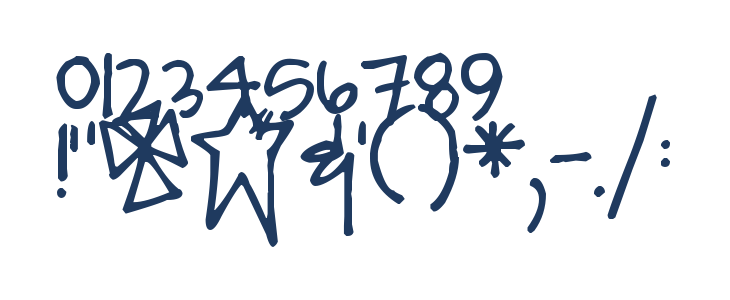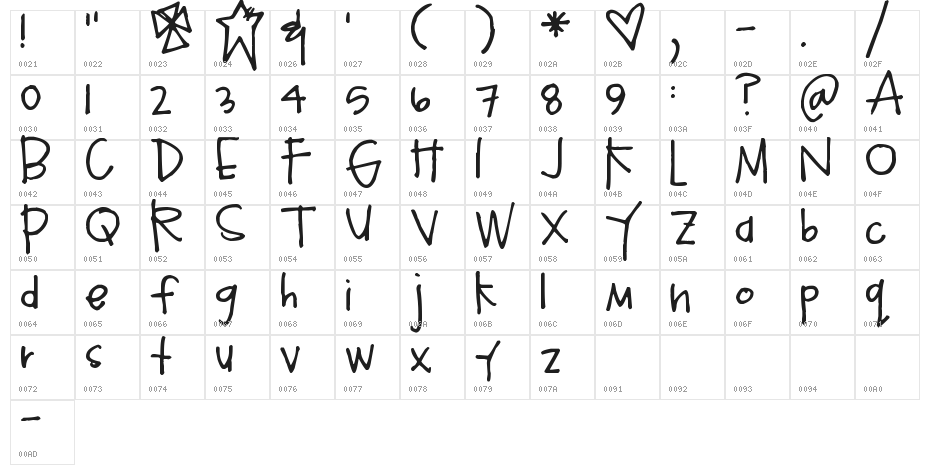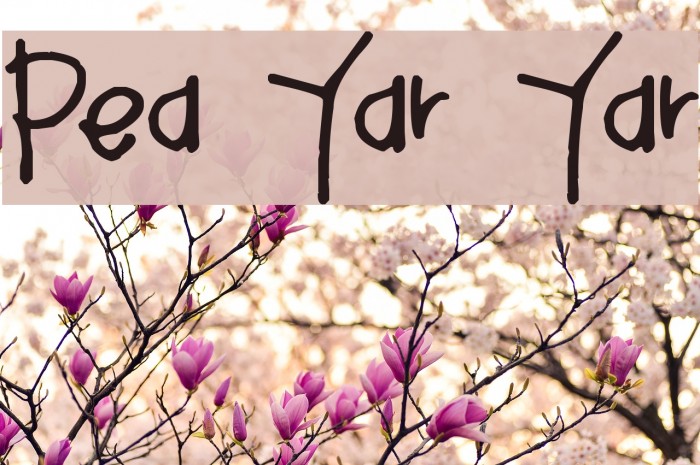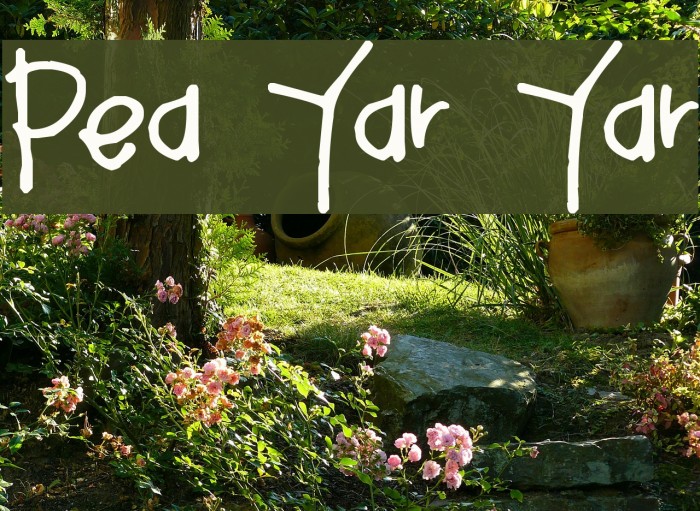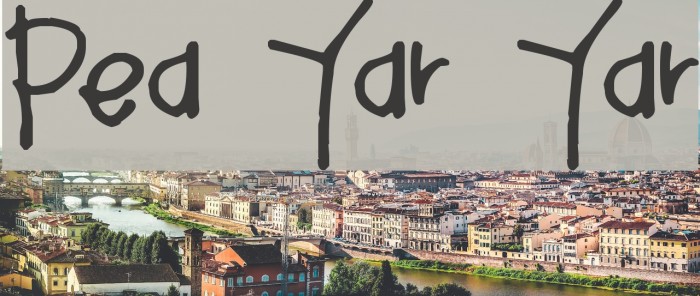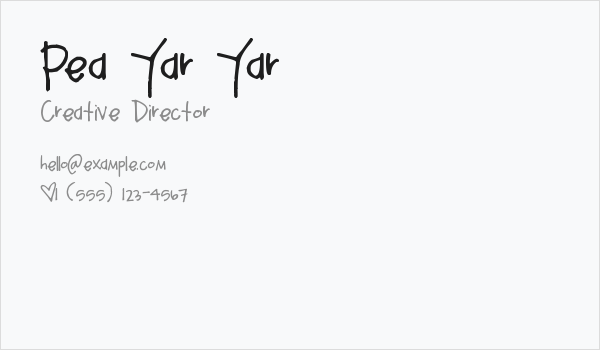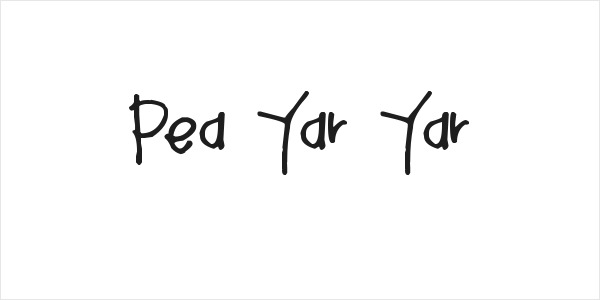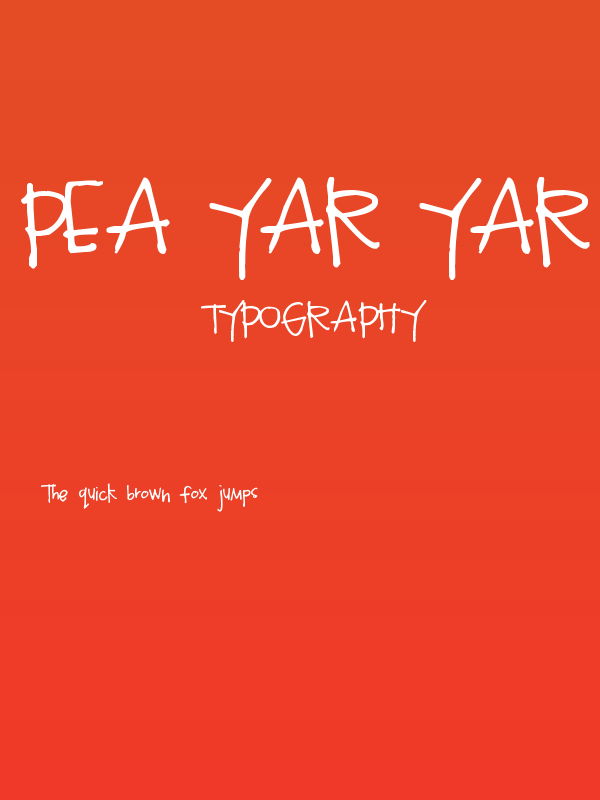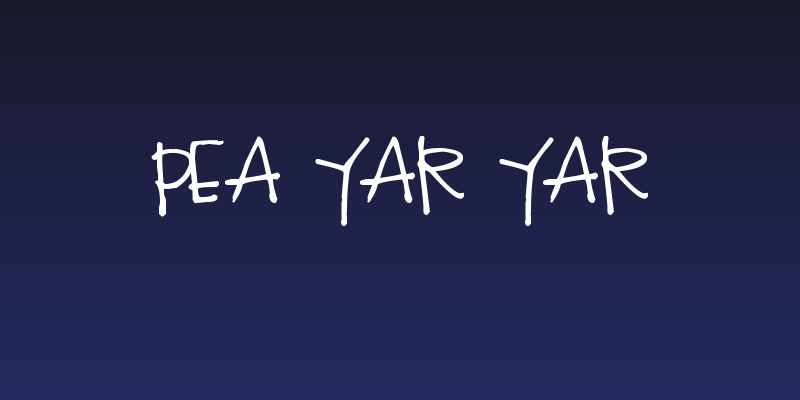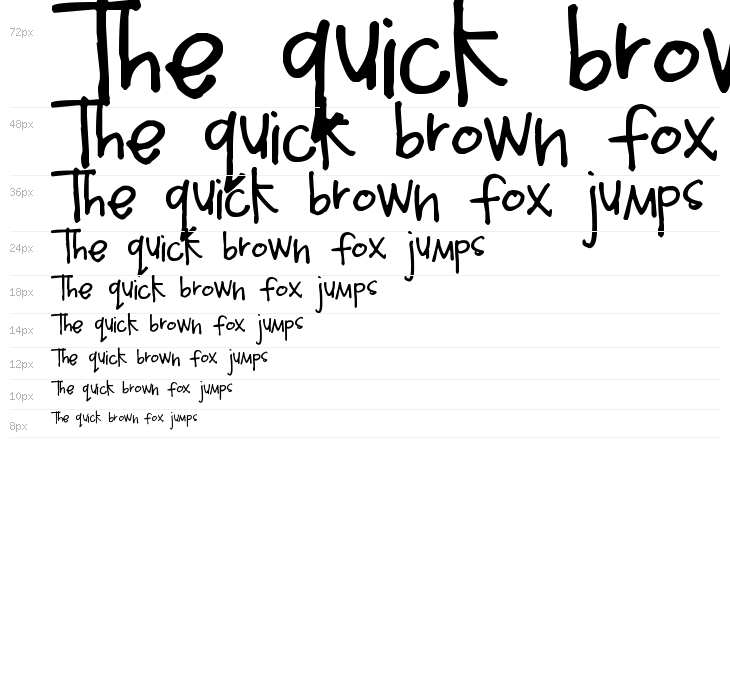
Pea Yar Yar Font
Pea Yar Yar Description
This playful and energetic font features a handwritten style with a casual and informal appearance. The letters are slightly irregular, giving it a personal and friendly touch. The uppercase and lowercase characters are well-balanced, with a consistent flow that mimics natural handwriting. The numbers and special characters maintain the same lively style, making it versatile for various creative projects. Its unique charm is perfect for designs that require a personal and approachable feel.